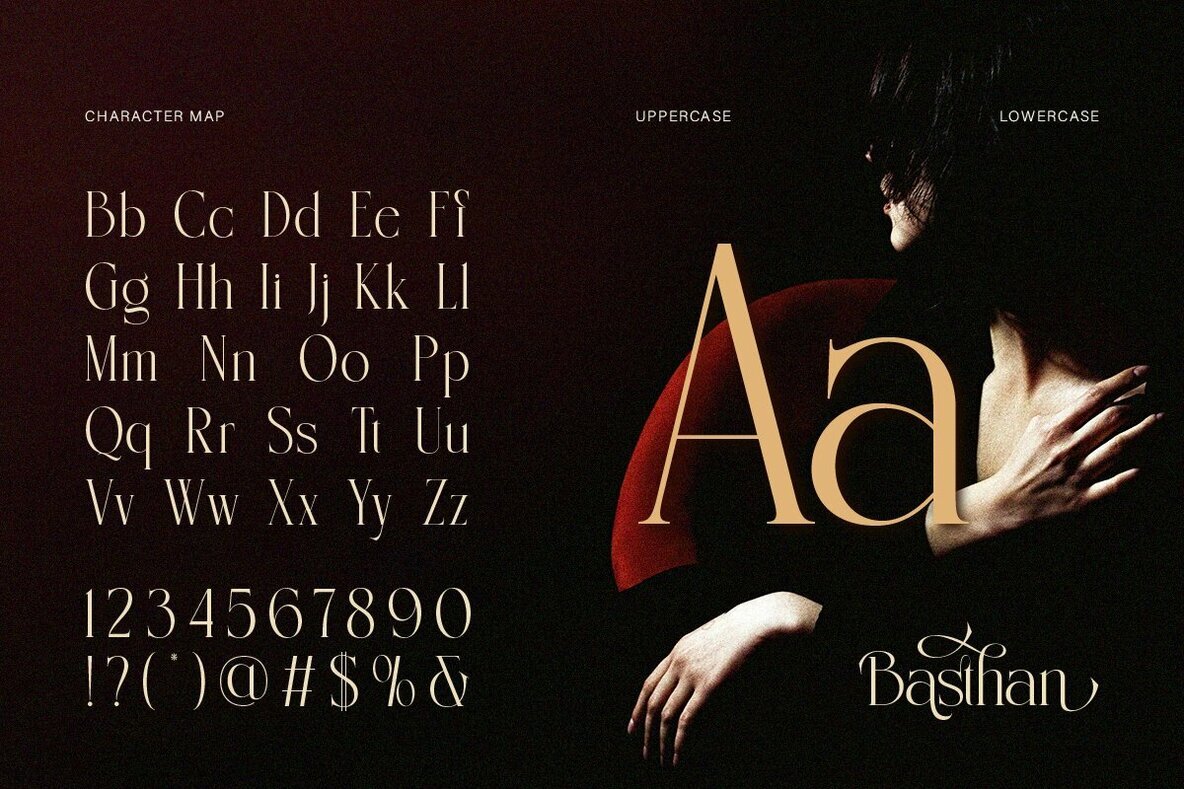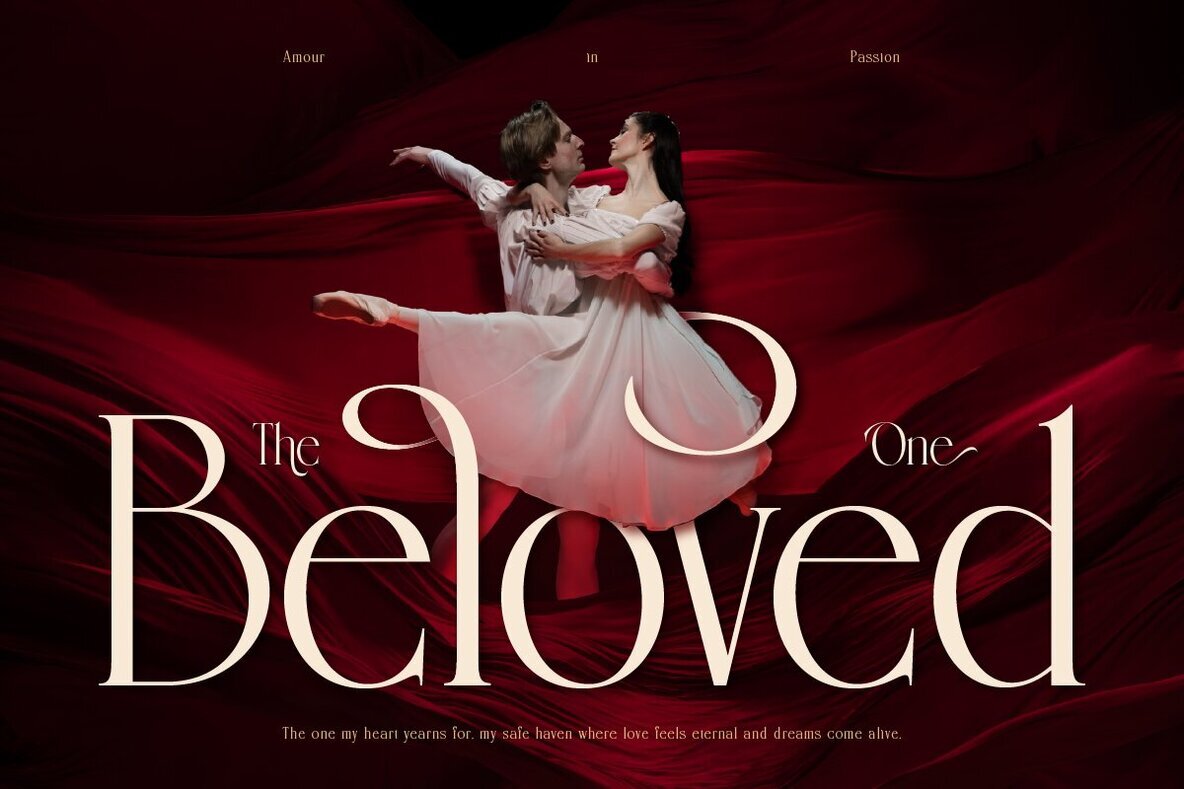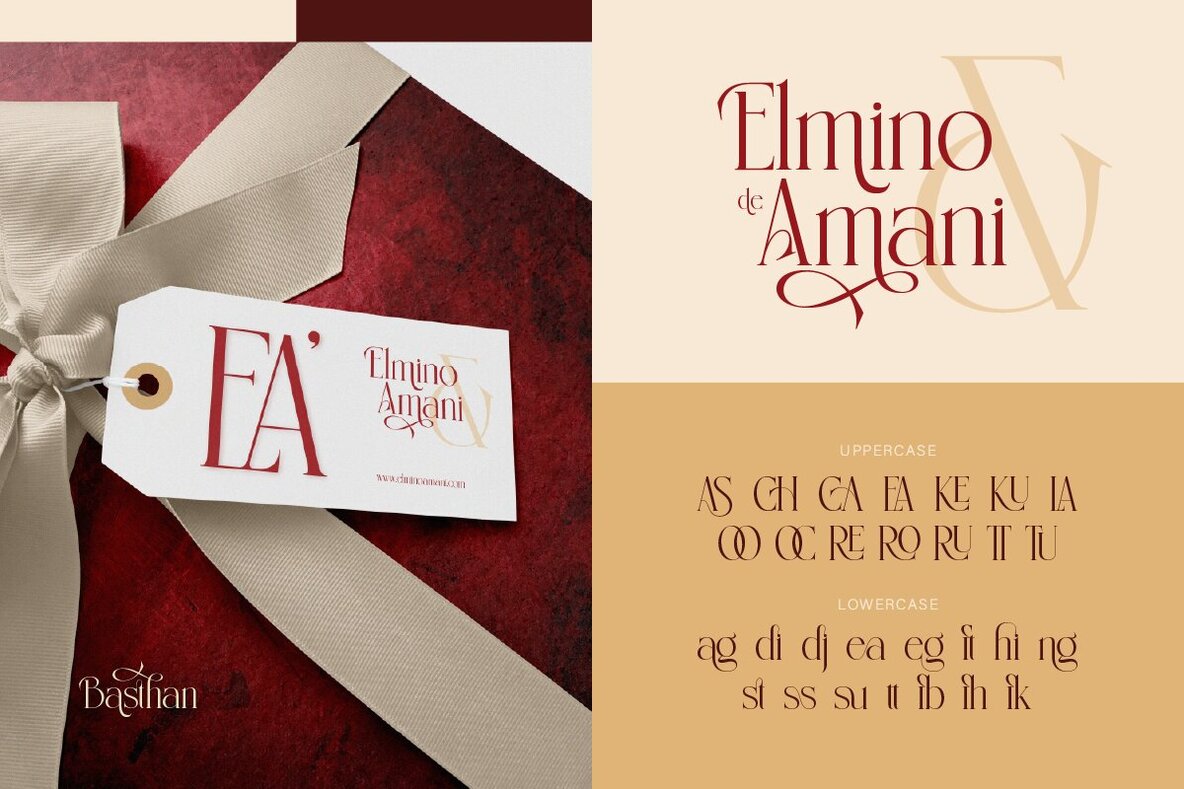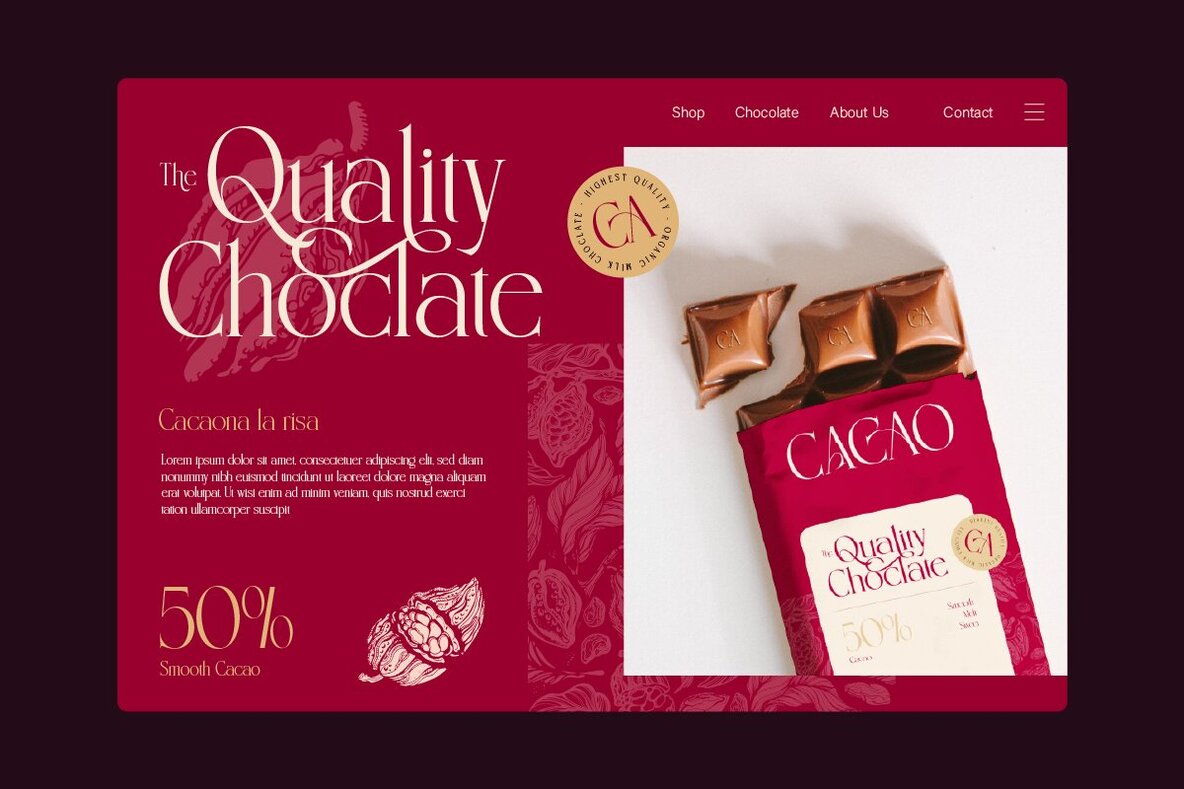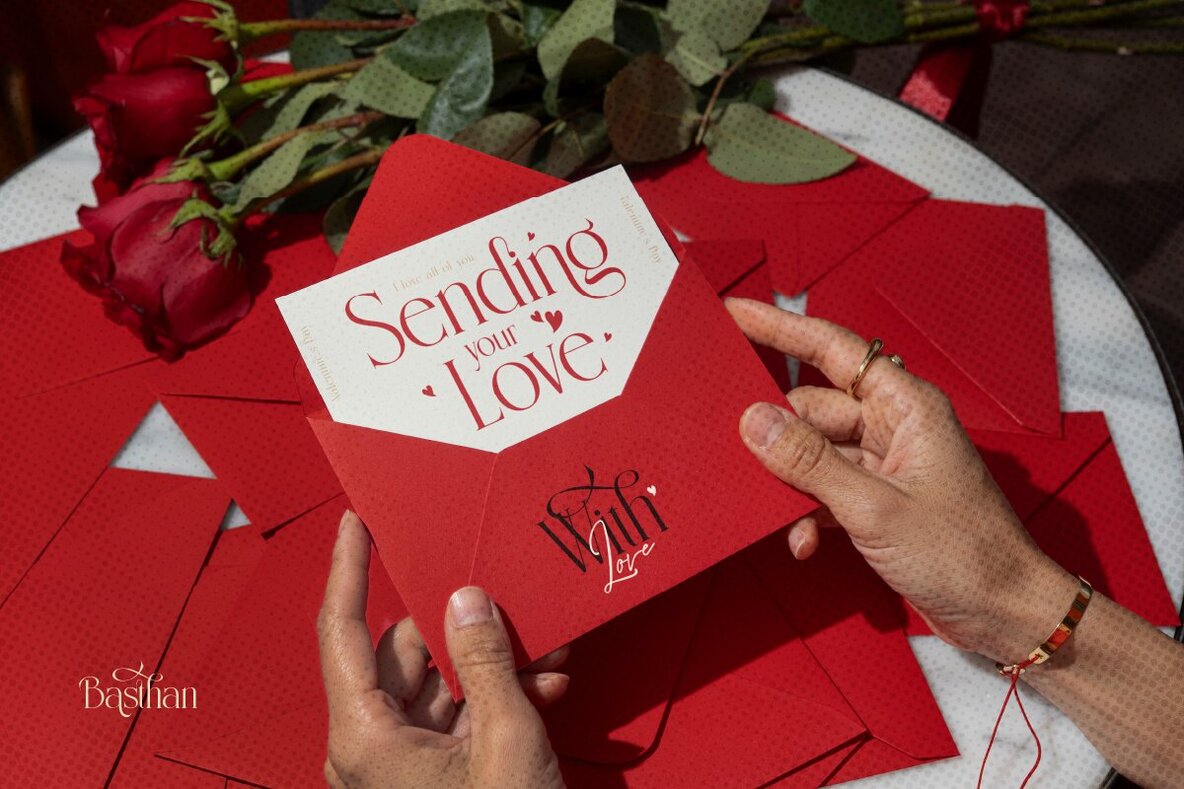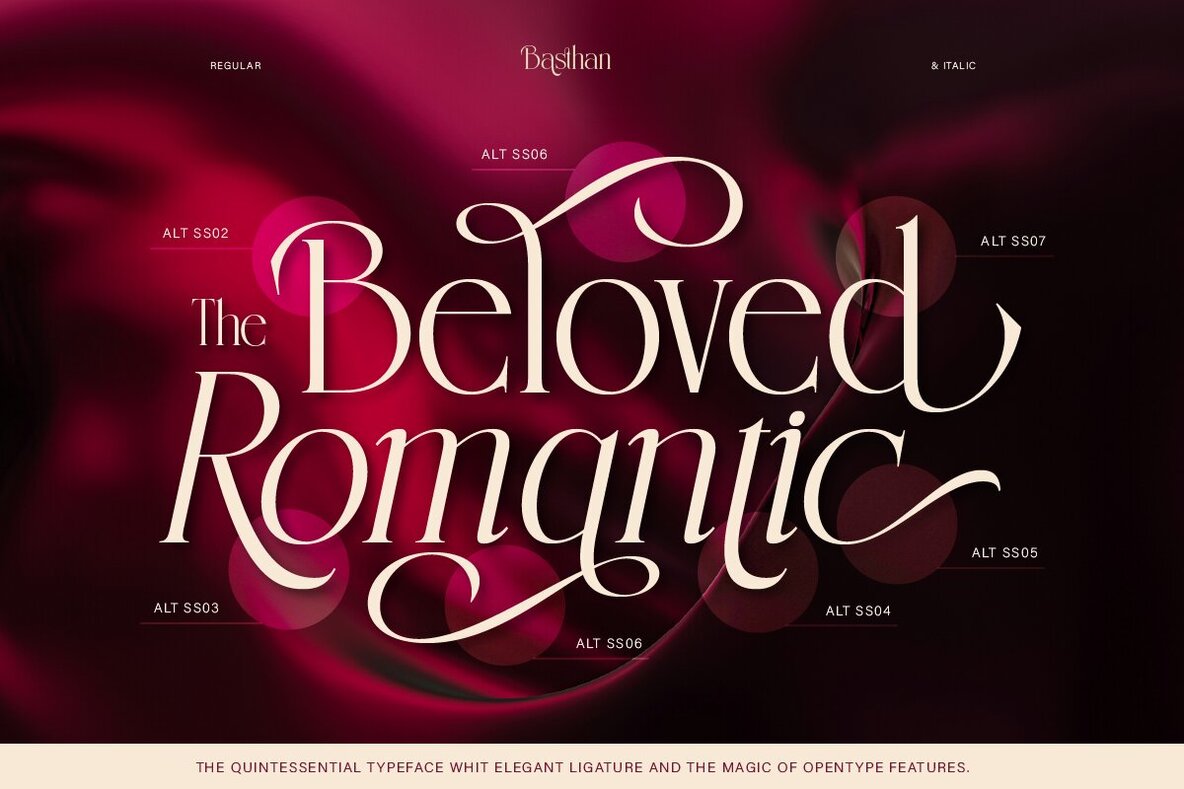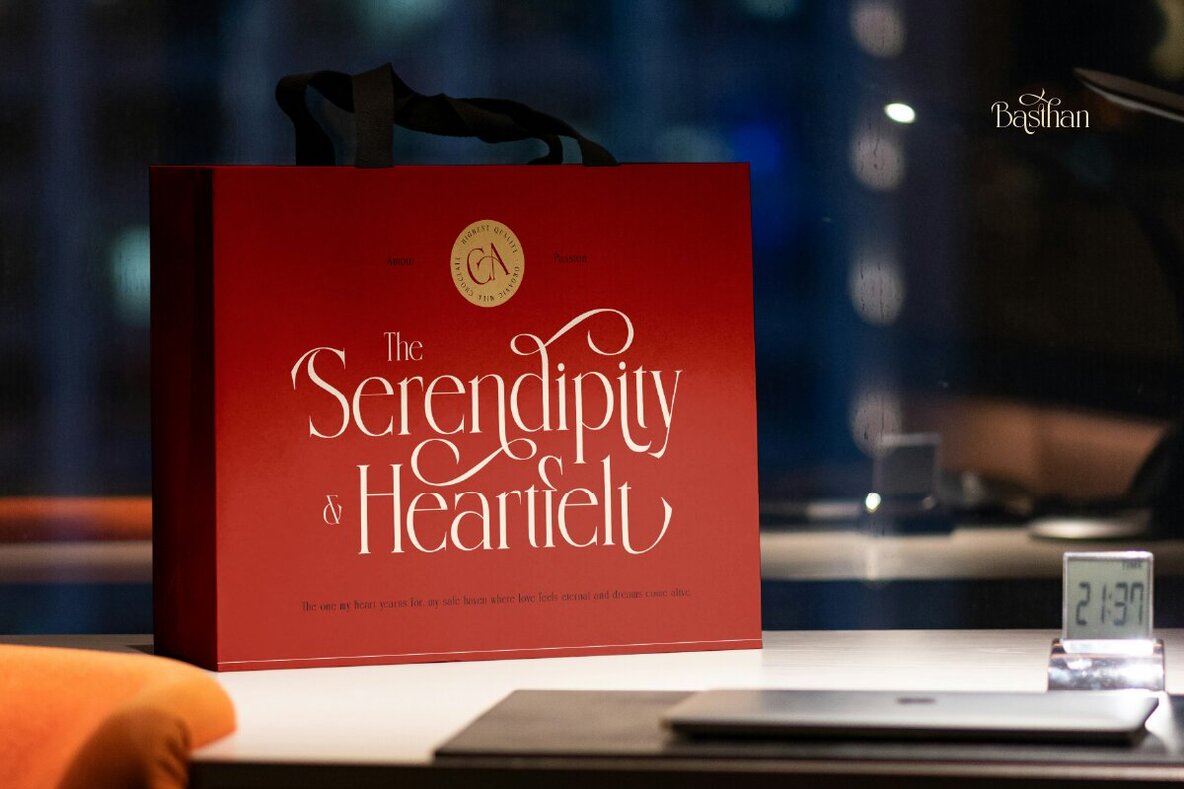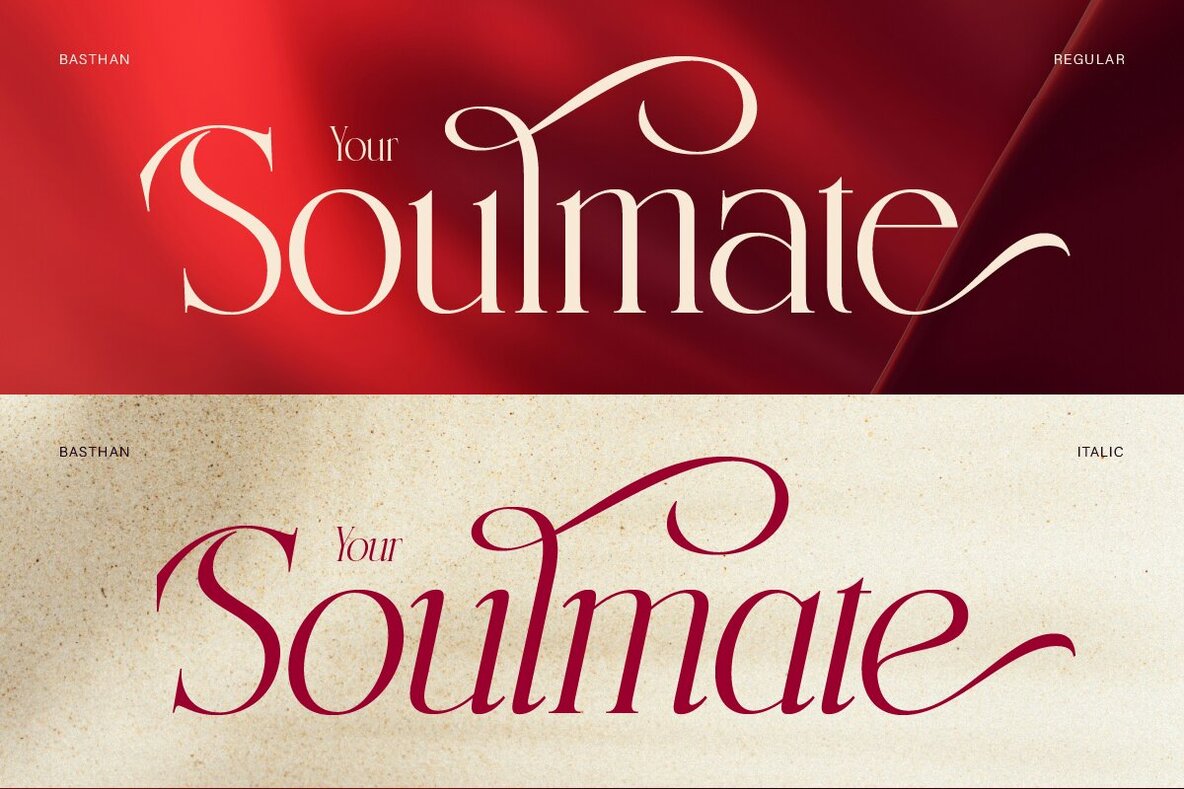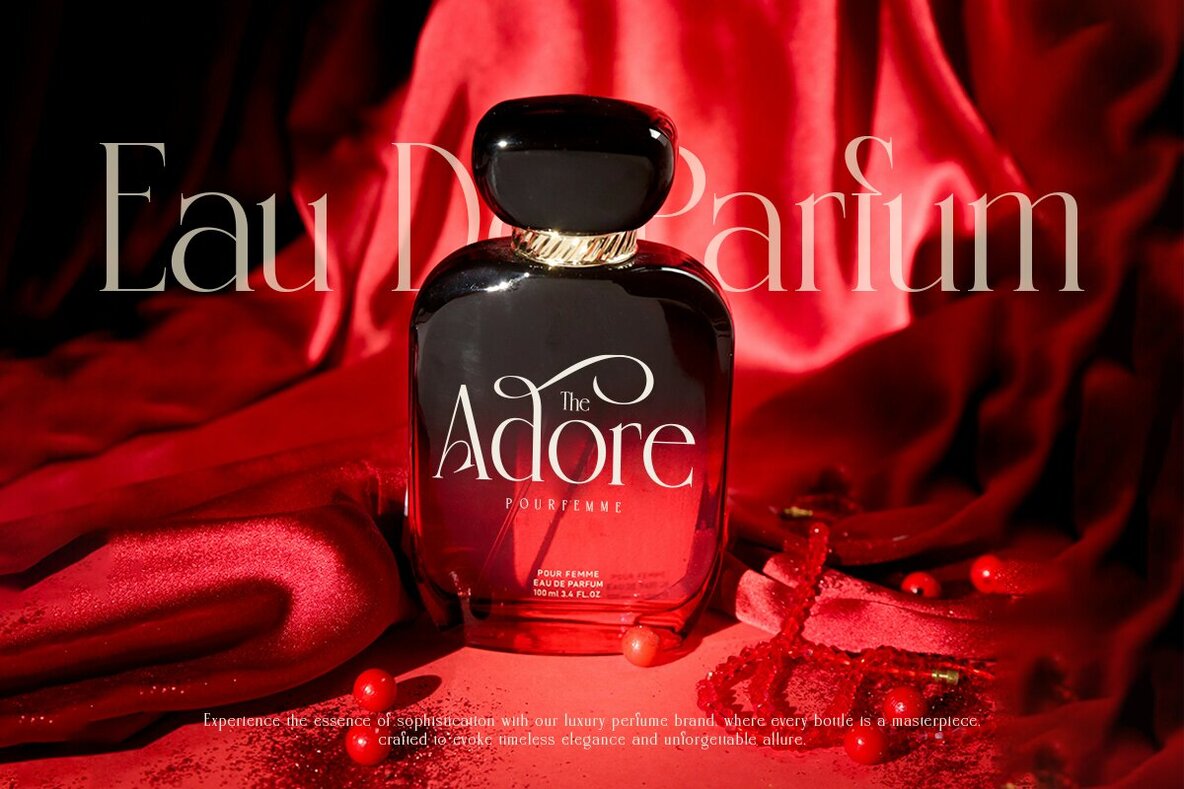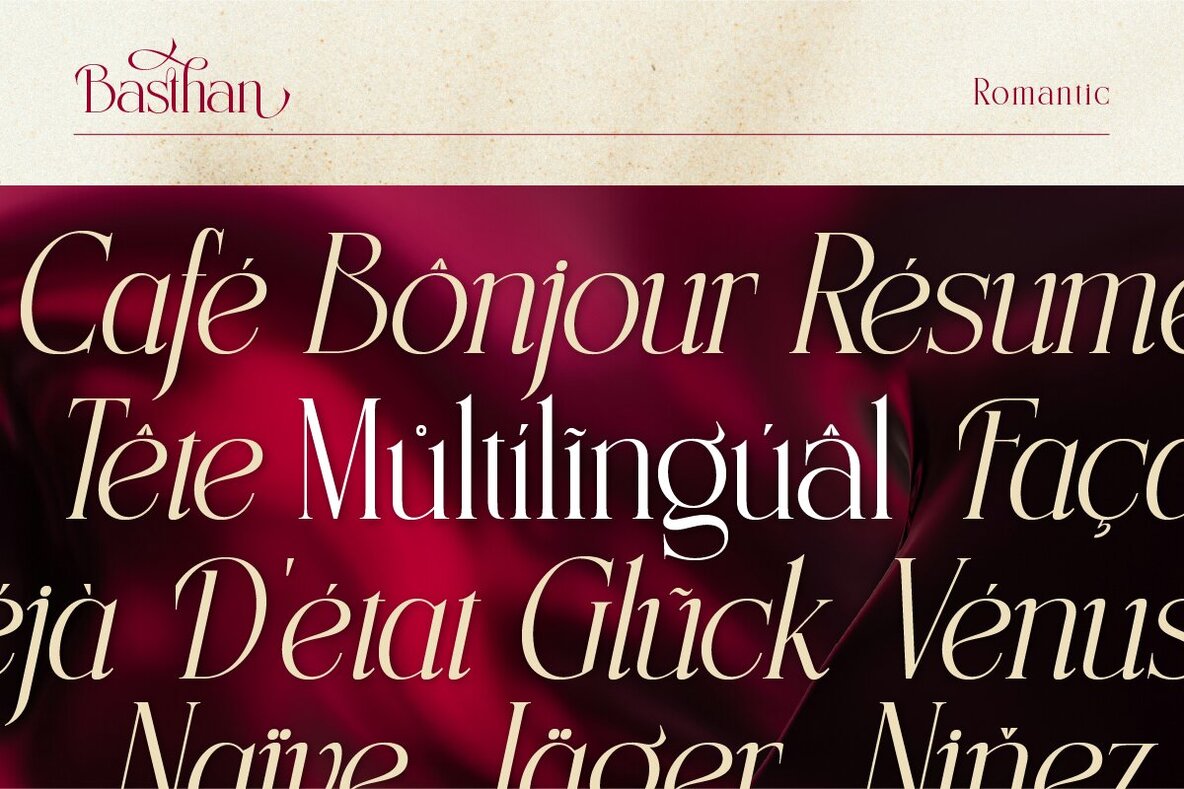
Basthan Font
Basthan Regular
Basthan Italic
Basthan is a captivating serif font that exudes elegance and a luxurious aura. Drawing inspiration from vintage typography, Basthan features aesthetic alternates and ligatures that infuse a dramatic flair into any project. Its refined curves and italic style lend a timeless and intriguing quality, making it a versatile choice for a range of design needs.
Ideal for luxurious branding, fashion labels, beauty product packaging, editorial designs, wedding invitations, and jewelry branding, Basthan adds a touch of sophistication and drama. The font includes A-Z uppercase and lowercase letters, numbers, punctuation, ligatures, alternates, and multilingual support, making it suitable for international projects. Let Basthan elevate your design projects with its classic elegance and unique style.